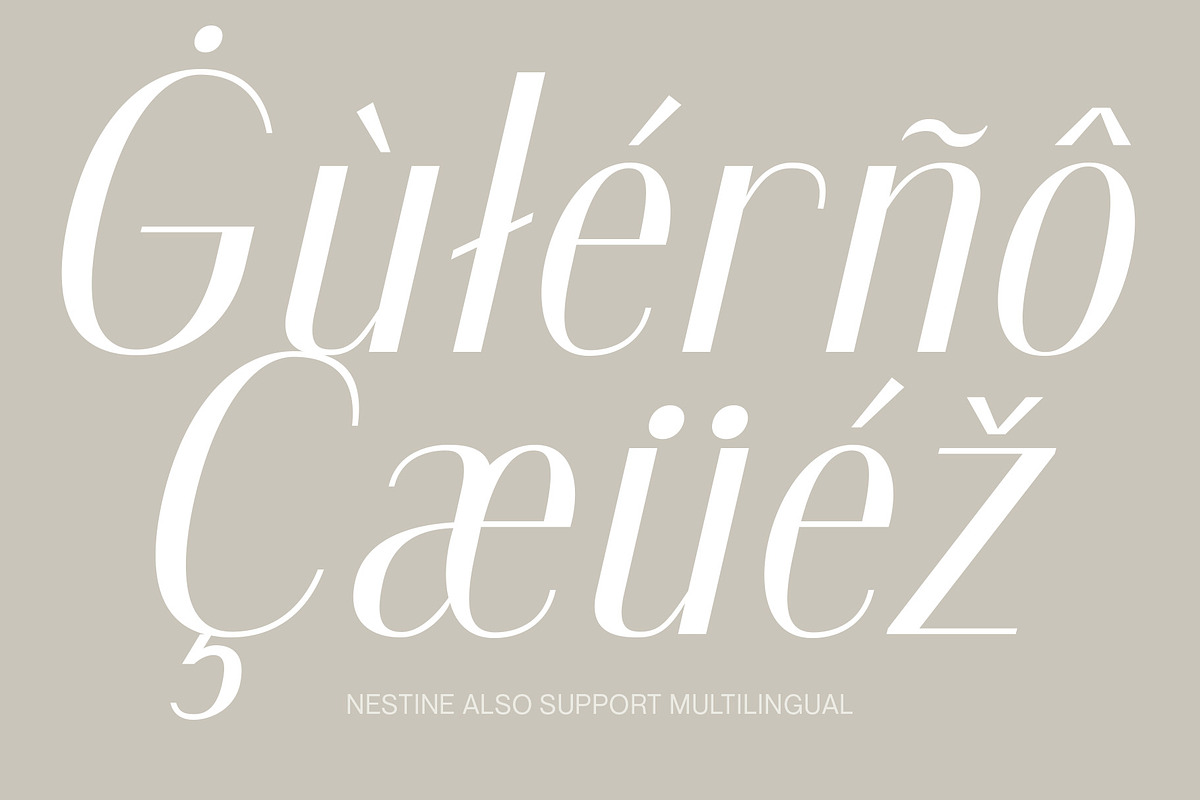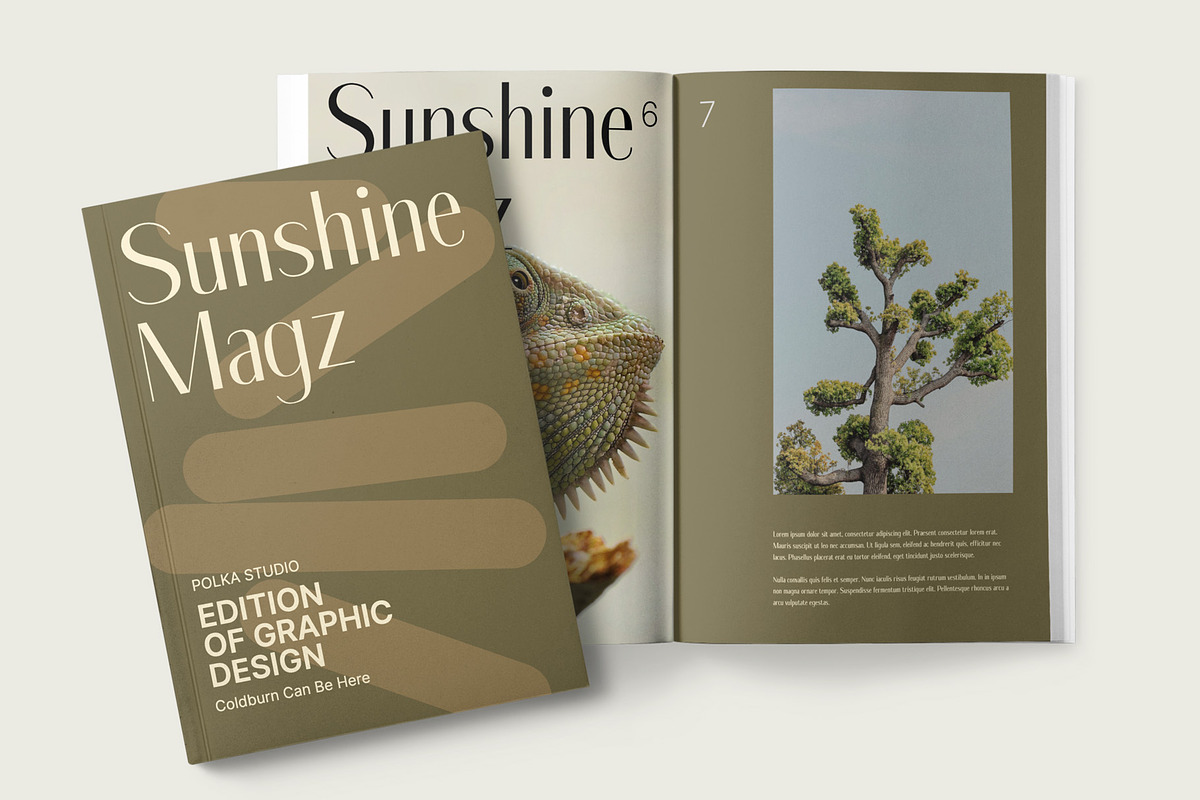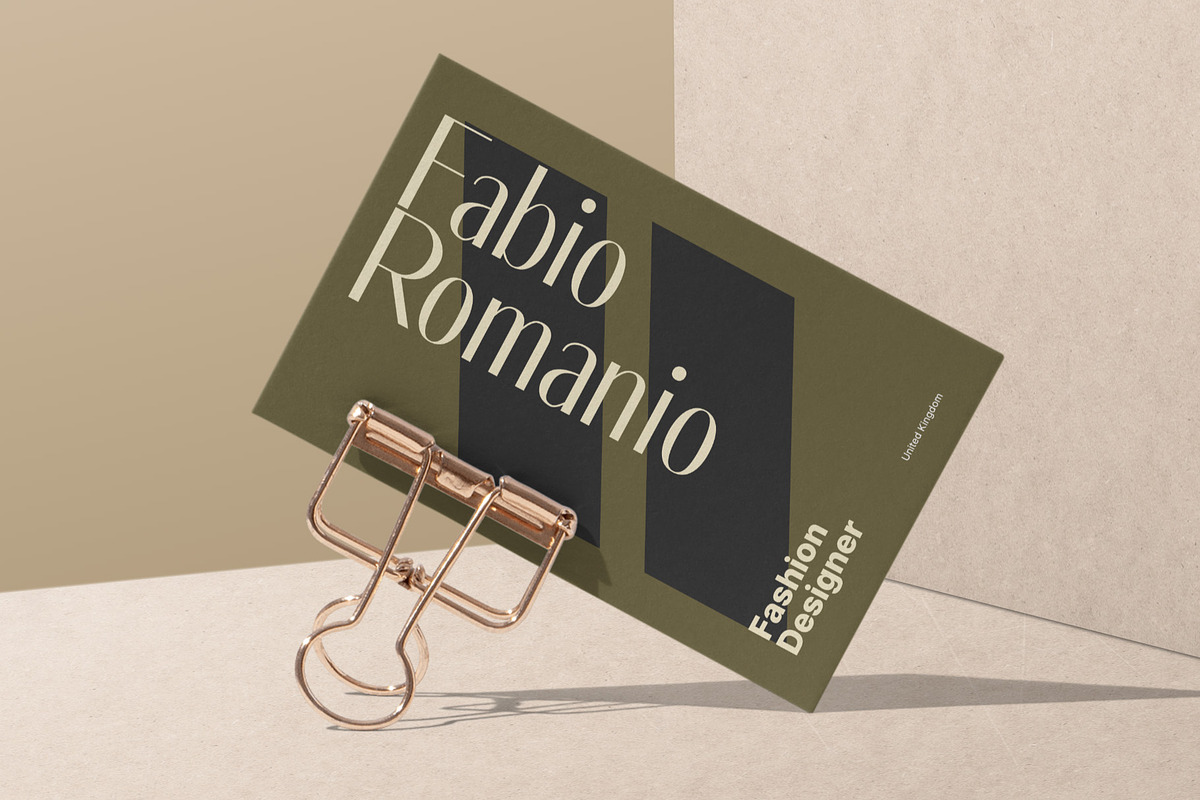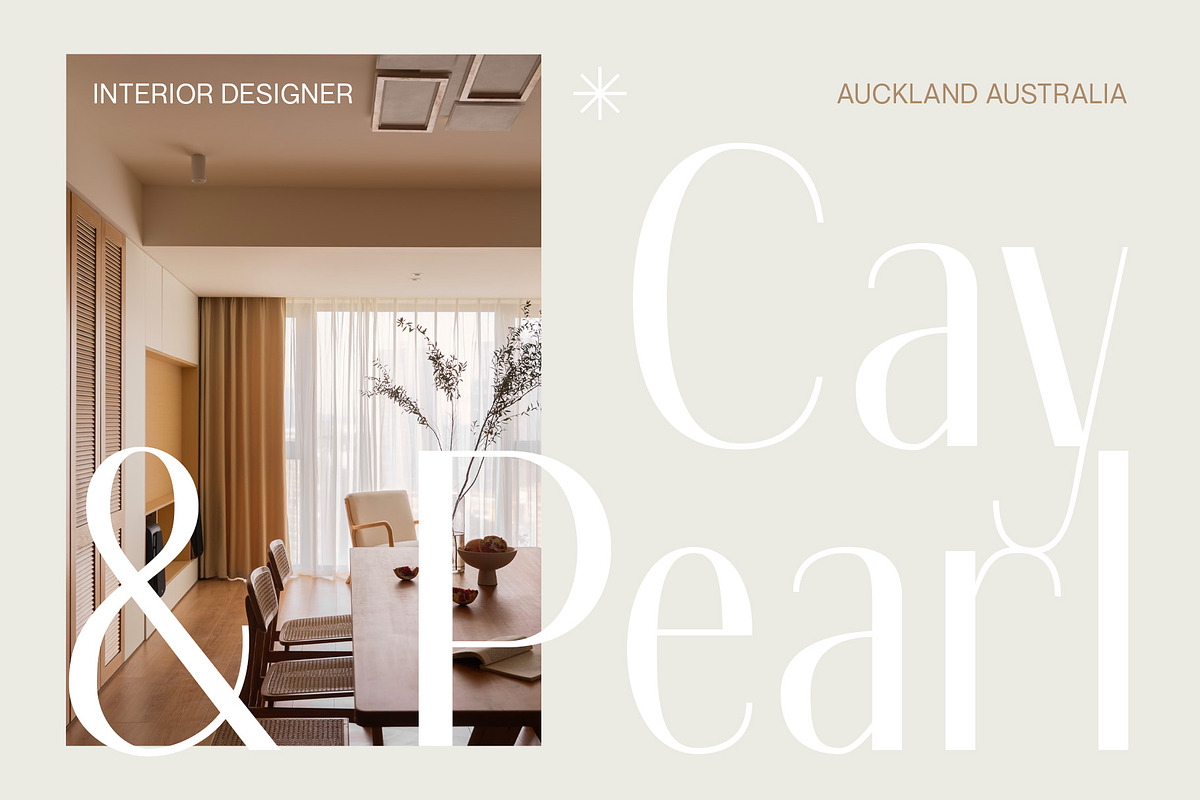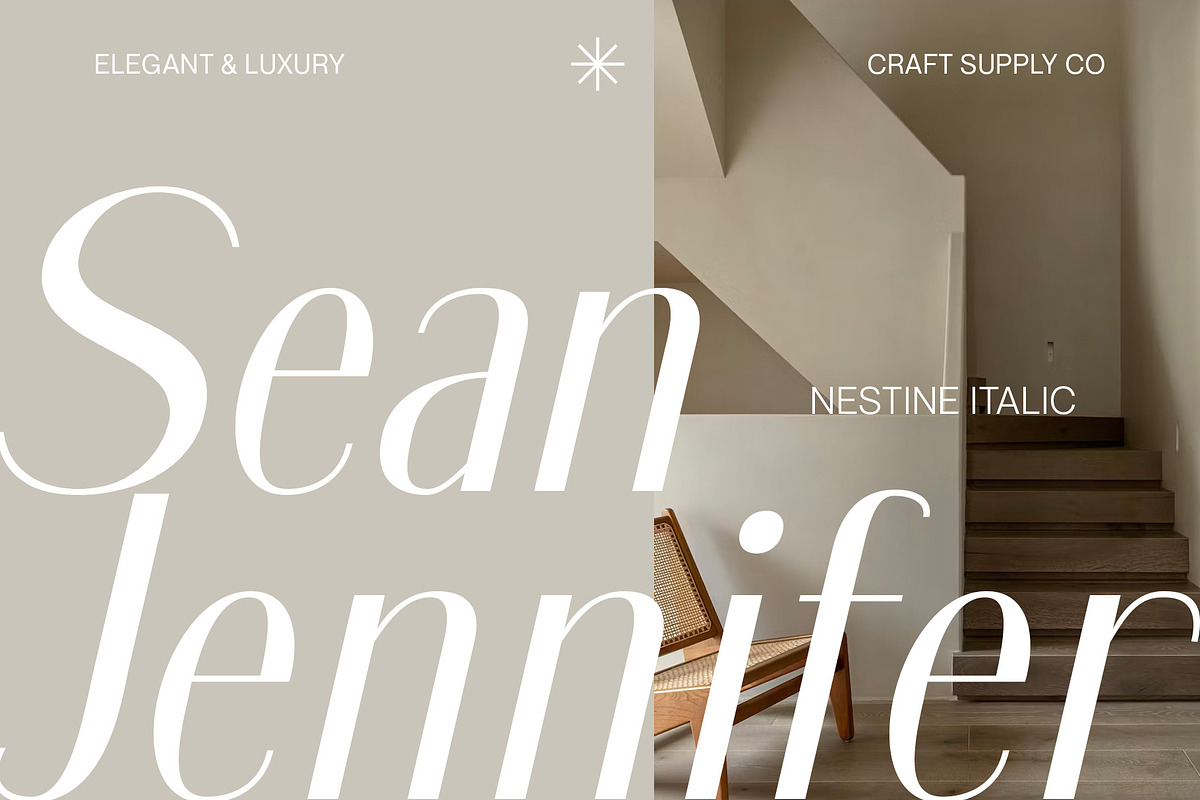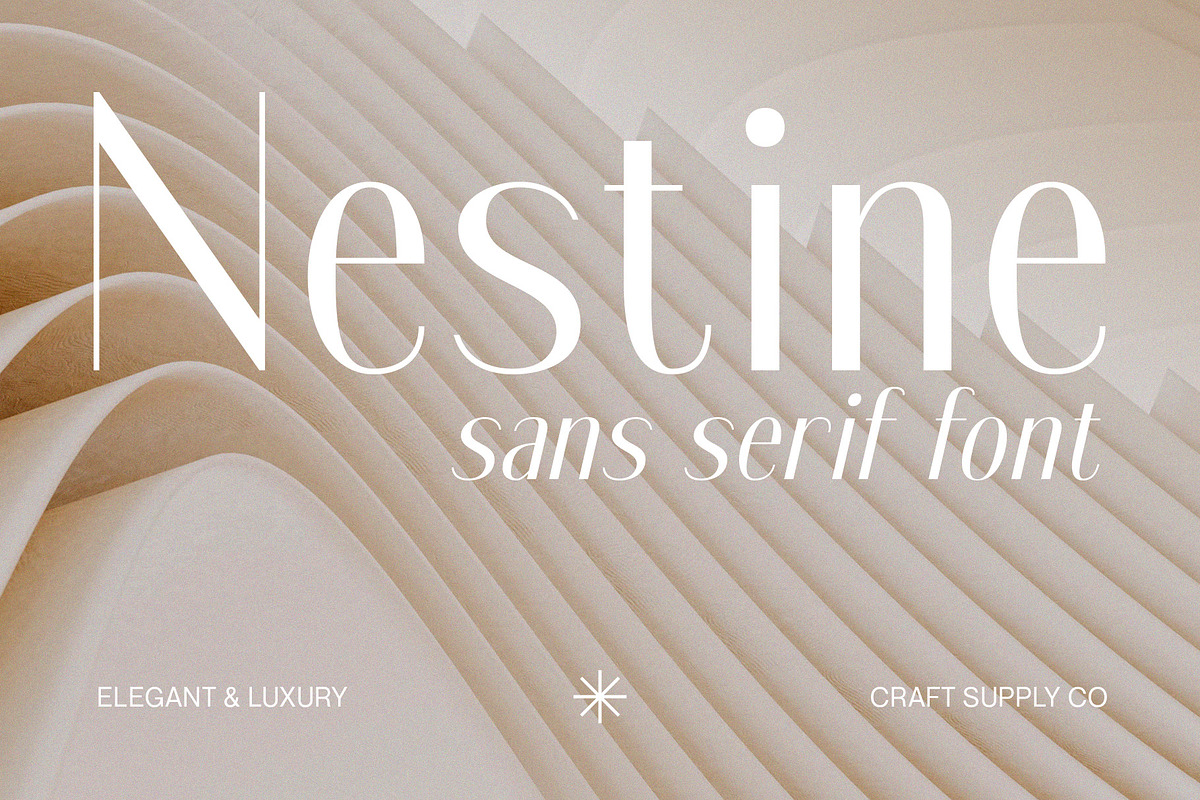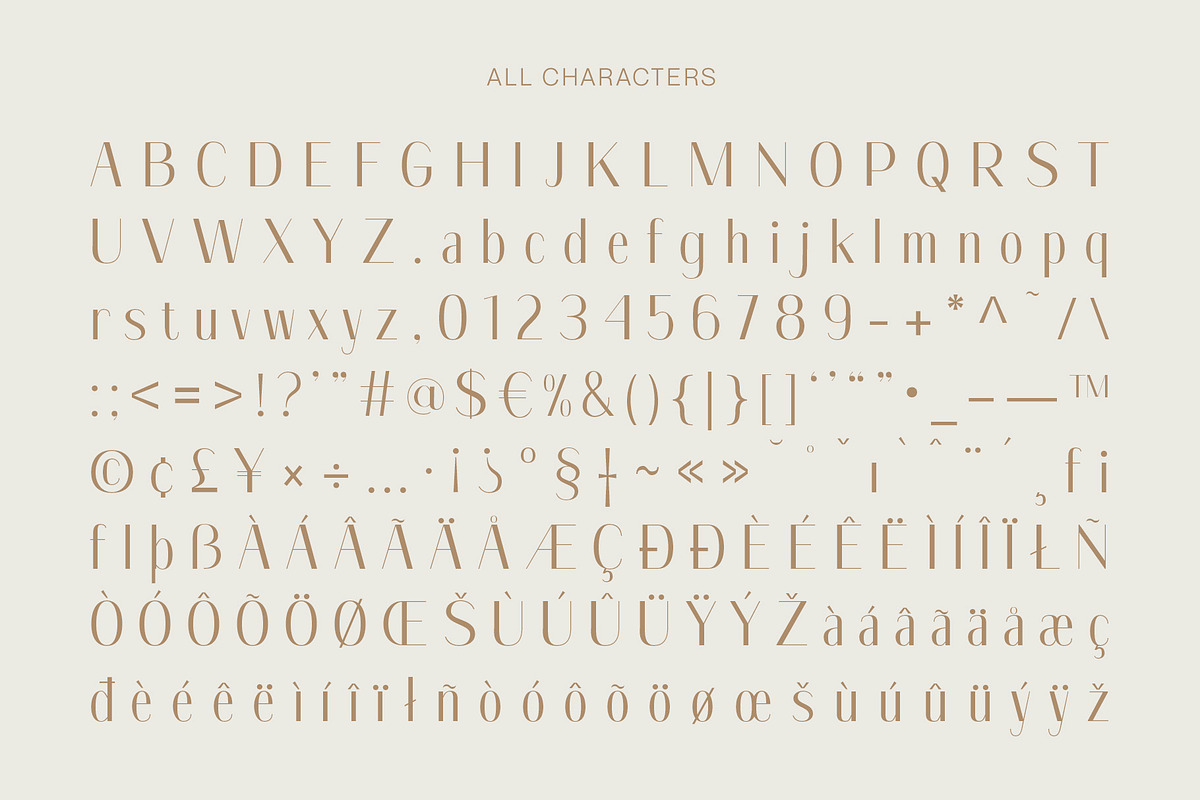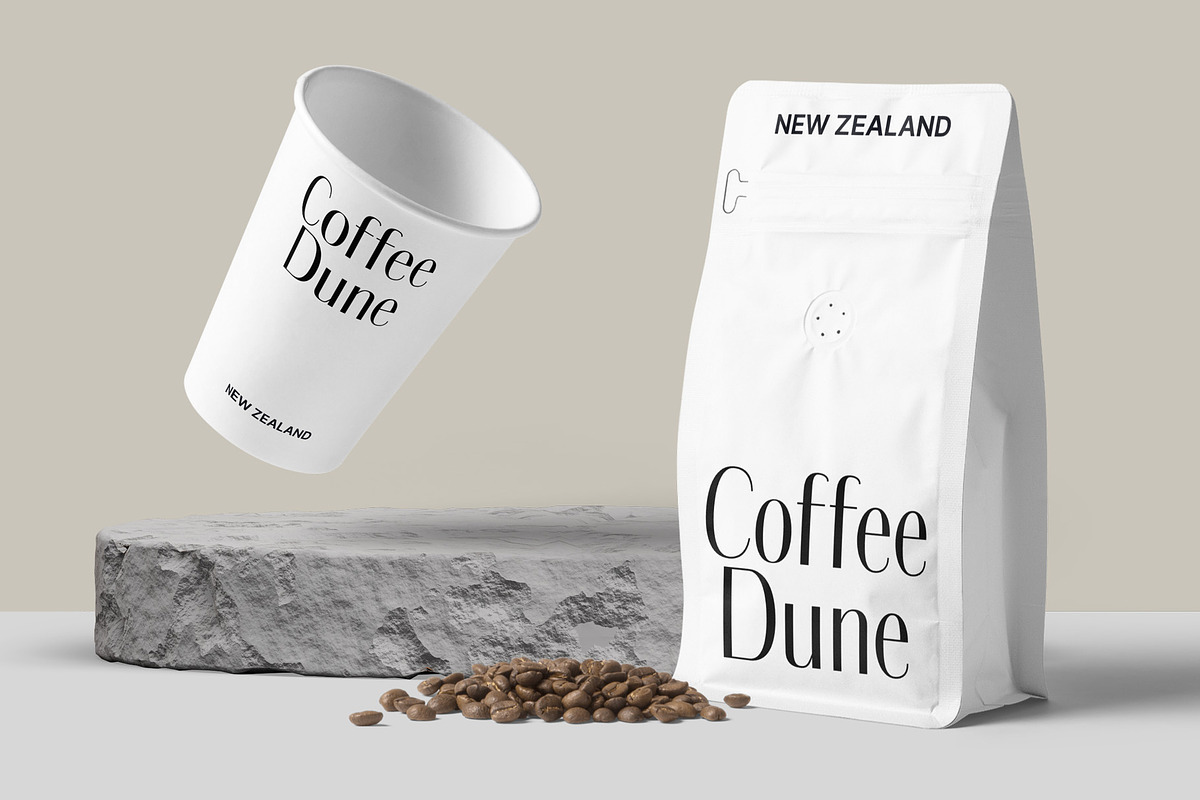
Nestine – Elegant Sans Serif
Introducing Nestine – Elegant Sans Serif
High Contrast Elegance
Nestine – Elegant Sans Serif is more than just a font; it’s a visual masterpiece with high contrast that effortlessly exudes an air of elegance and luxury.
The Epitome of Elegance
Moreover, Nestine epitomizes elegance. Its striking contrast between thick and thin lines creates a visual appeal that is both refined and sophisticated, making it the perfect choice for luxury designs that demand attention.
A Minimalist Marvel
Nestine’s high contrast design is a minimalist marvel. It relies on the purity of its design to convey sophistication and elegance, proving that simplicity can be the essence of opulence.
Ideal for Luxury Design
Additionally, Nestine is tailor-made for luxury design projects. From high-end branding to upscale packaging, it adds a touch of opulence and refinement that leaves a lasting impression of sophistication.
In Conclusion
In summary, Nestine – Elegant Sans Serif is the epitome of high-contrast elegance. It’s the font that effortlessly combines the art of sophistication and luxury. With Nestine, your designs achieve a minimalist yet opulent quality that captivates the viewer, leaving an indelible mark of refined taste and aesthetic beauty.
- Nestine Regular
- Nestine Italic